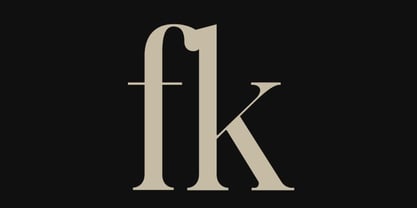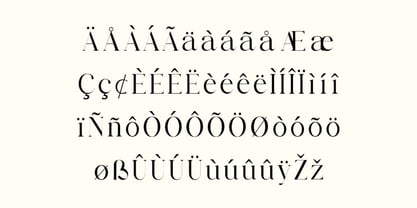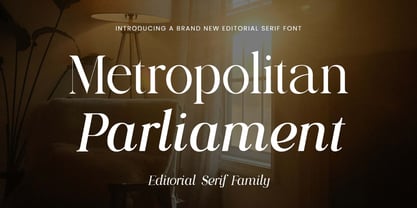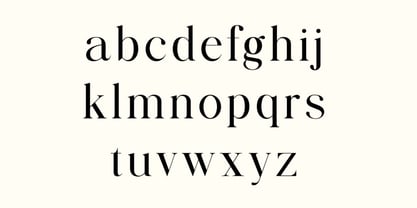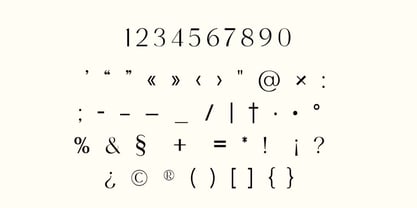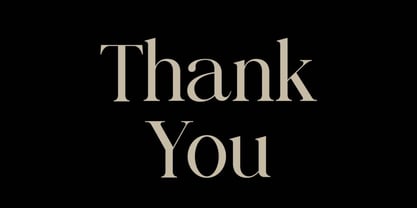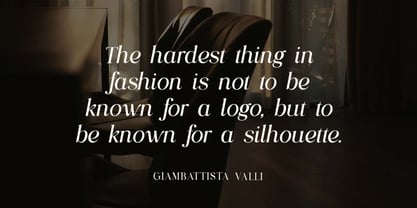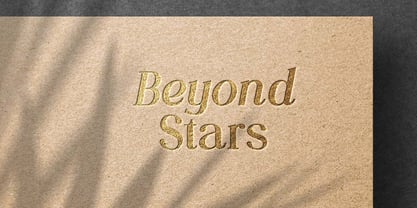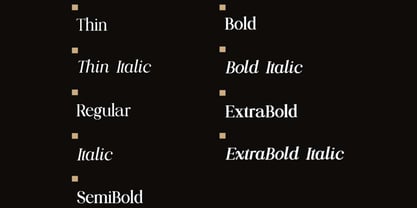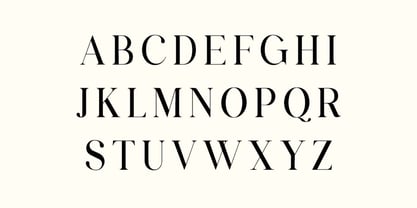
Metropolitan Parliament
by UICreative
The Metropolitan Parliament Font Family was designed by Hero and published by UICreative. Metropolitan Parliament contains 9 styles and family package options. More about this family
Metropolitan Parliament Editorial Serif Family Font. The modern display font feels beautiful classy, elegant, and stylish. This font is ideally suited for a wide variety of projects, such as signature, stationery, logo, wedding, typography quotes, magazine or book covers, website headers, branding, and more. Also, fashion-related branding or editorial design displays both masculine and feminine qualities.
Designers: Hero
Foundry: UICreative